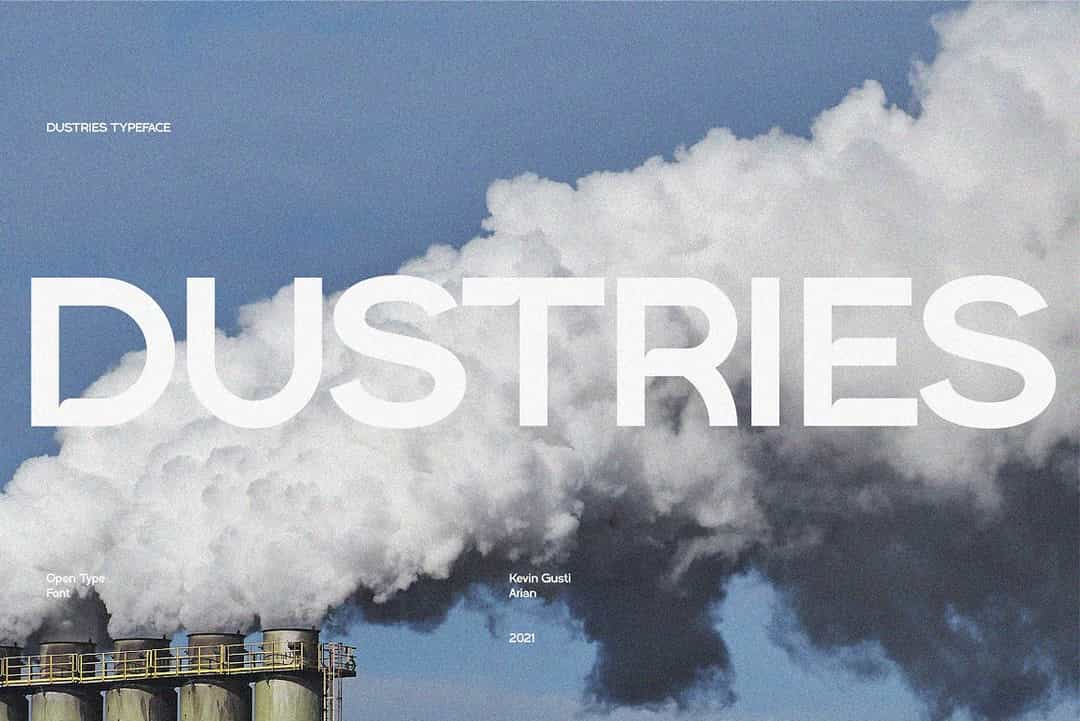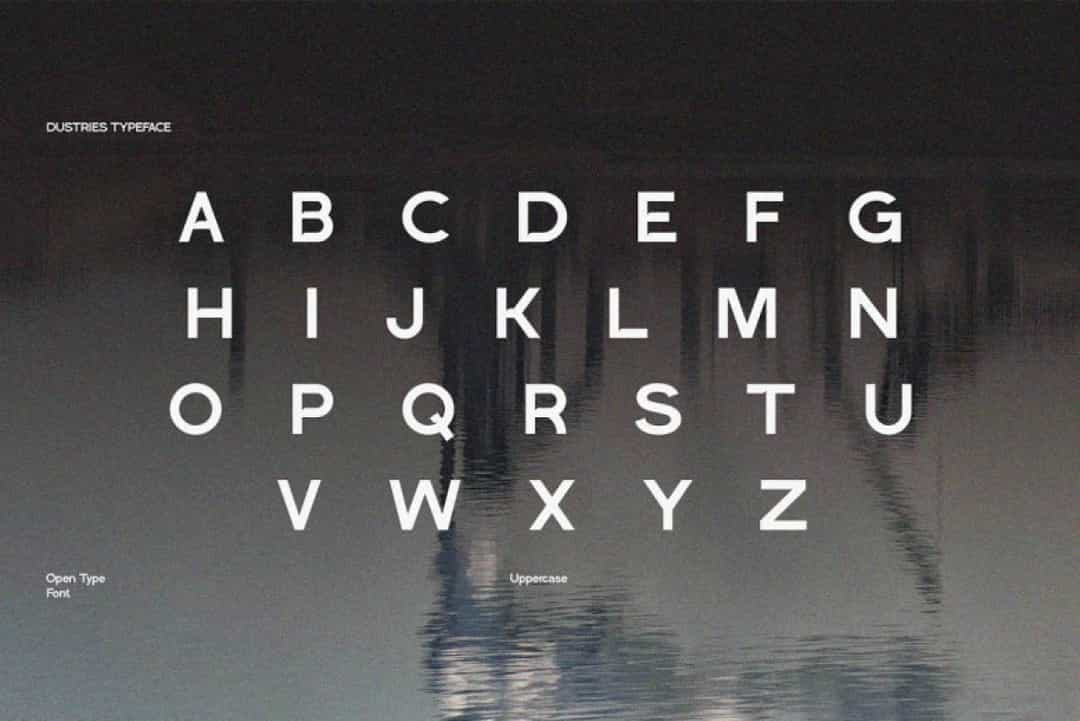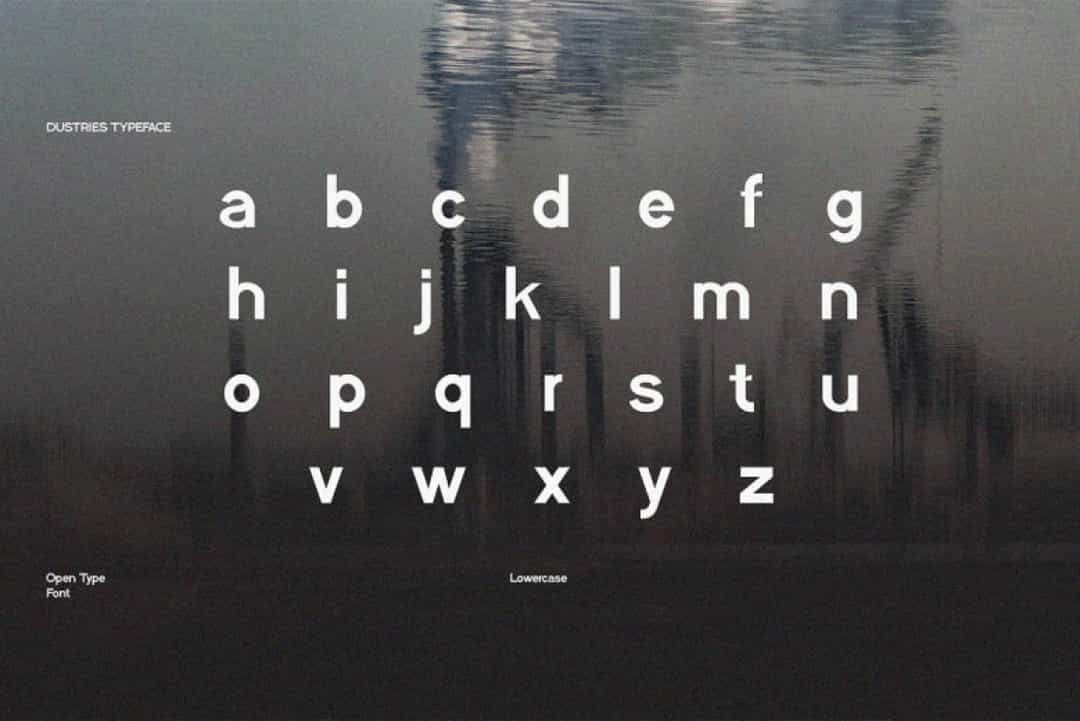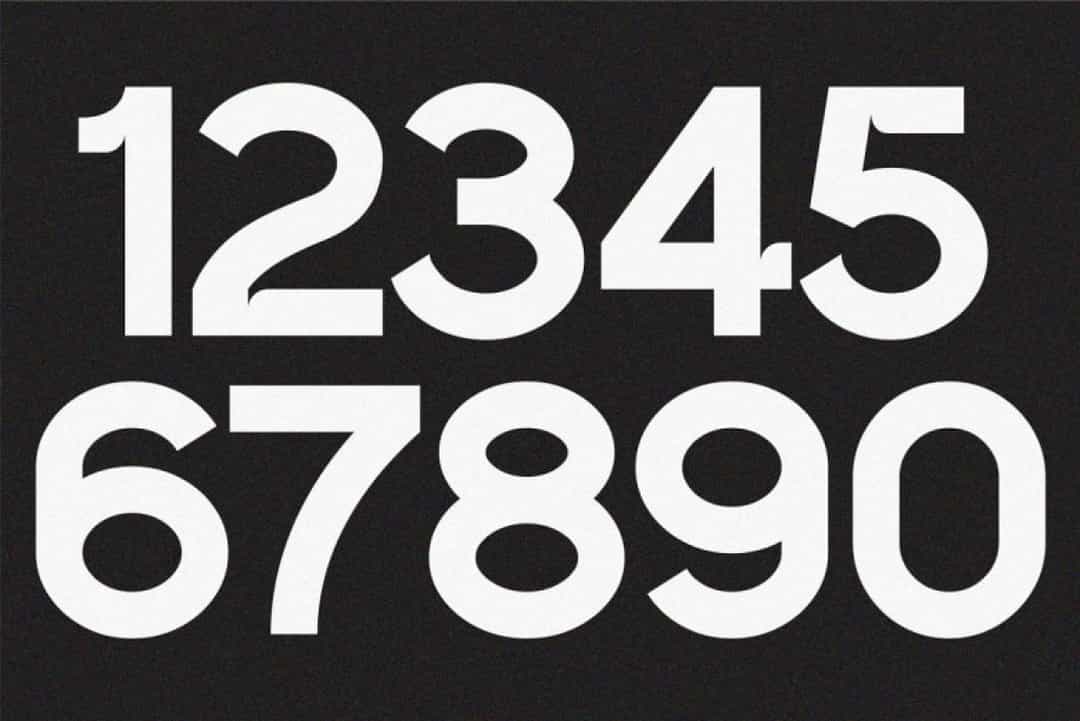
Dustries is a contemporary sans serif font designed by Kevgusar with its own distinct character, ideal for Headlines or Headers and elegant Titles as well as custom logotype designs.